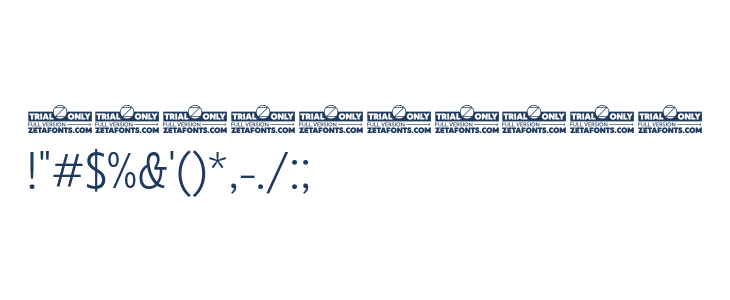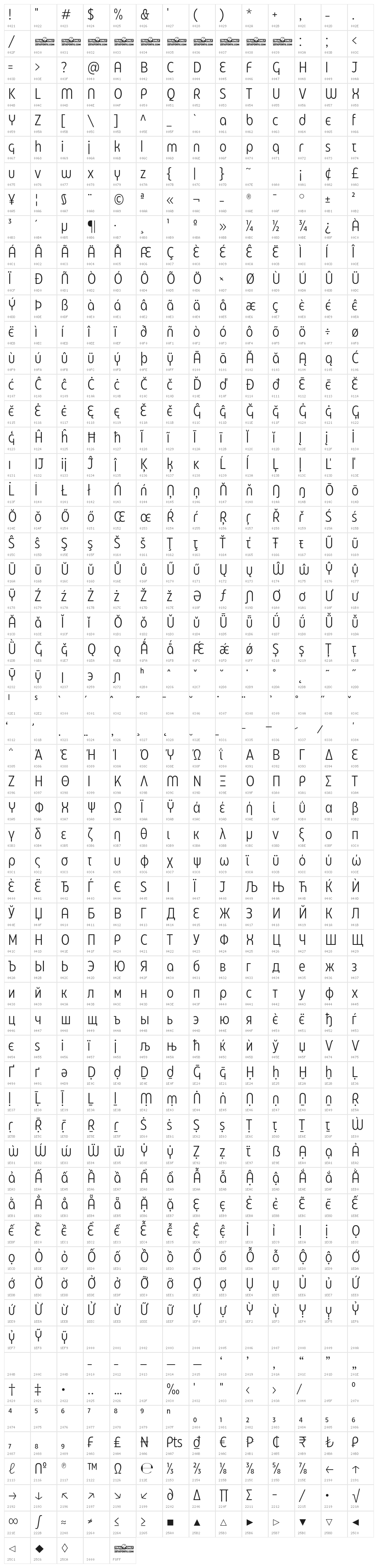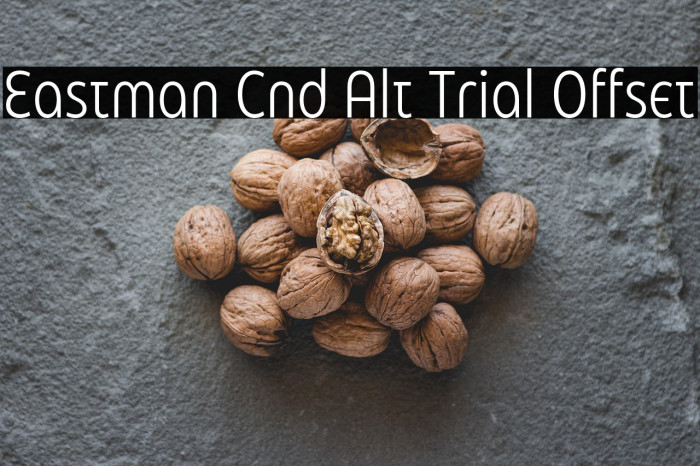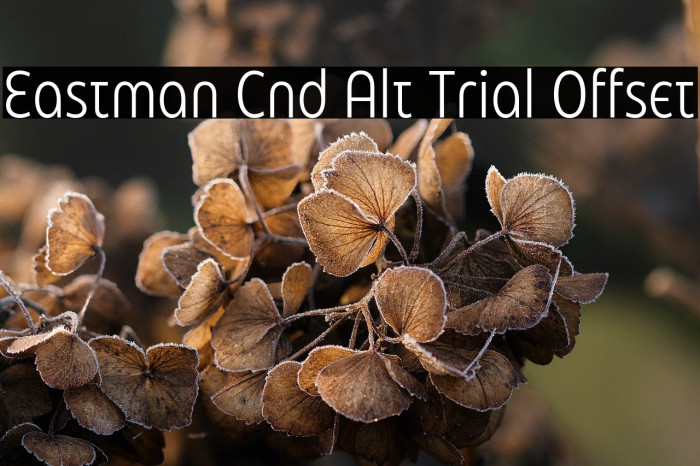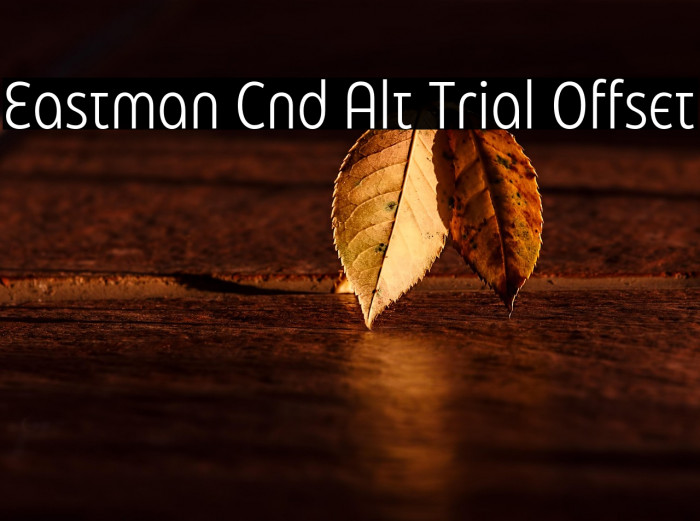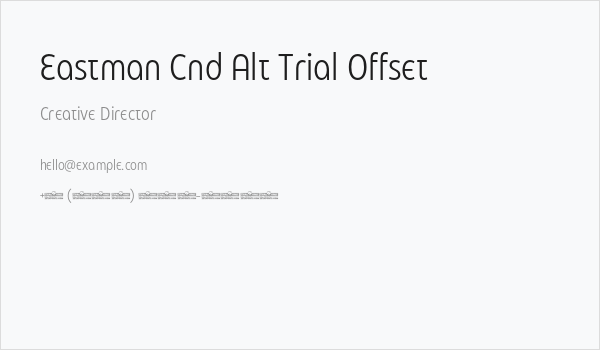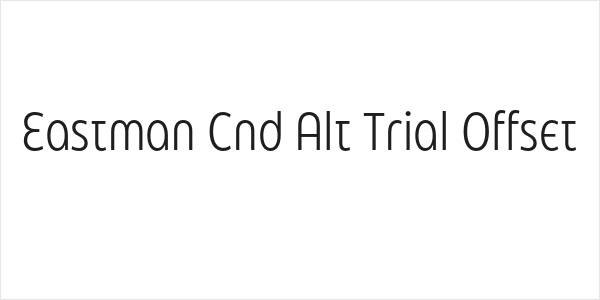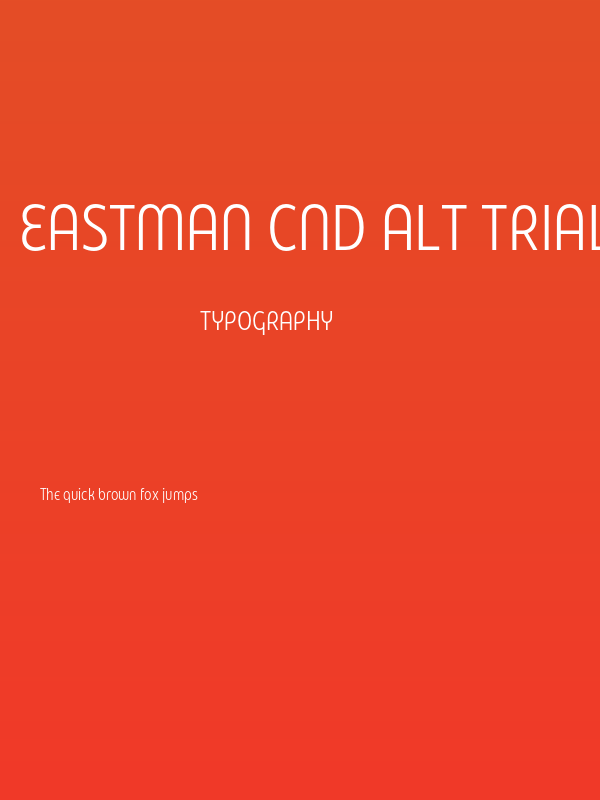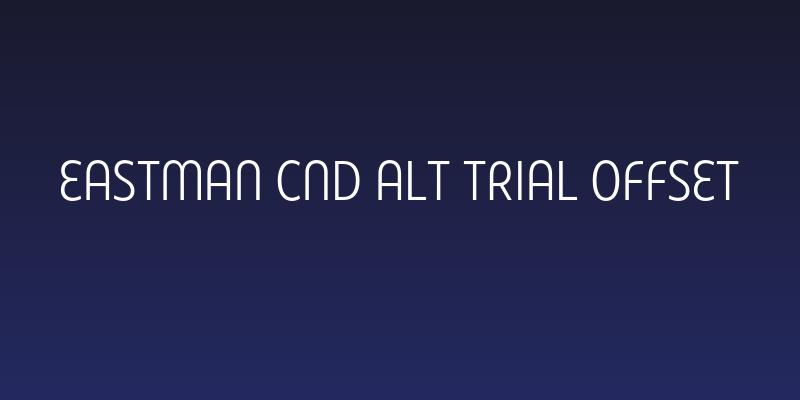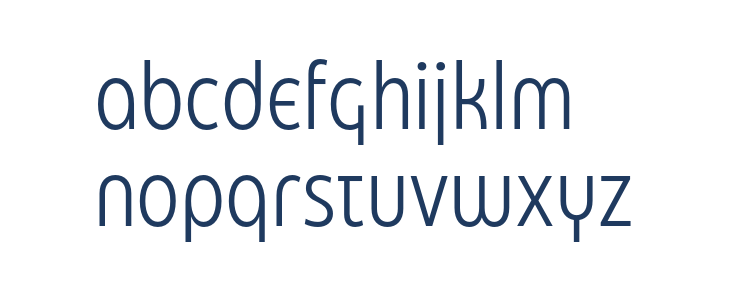
Eastman Cnd Alt Trial Offset Font
Eastman Cnd Alt Trial Offset Description
This font features a clean and modern sans-serif style with a slightly condensed appearance. The characters have a uniform stroke width, contributing to a sleek and contemporary look. The uppercase letters are tall and narrow, while the lowercase letters maintain a consistent height, enhancing readability. The font includes a full set of numerals and a variety of special characters, making it versatile for different design needs. Its geometric shapes and smooth curves give it a professional and polished feel, suitable for both digital and print media.